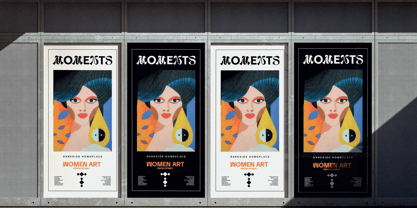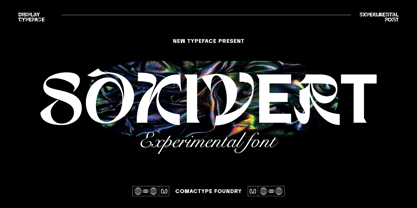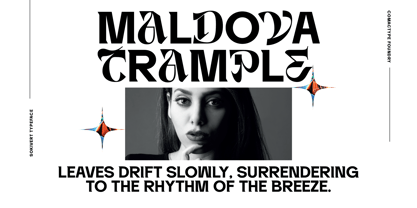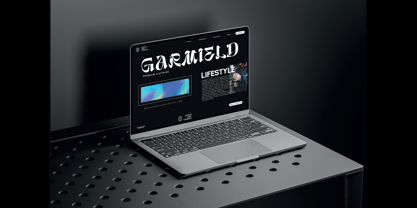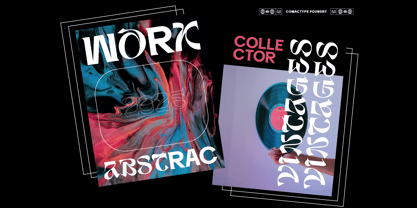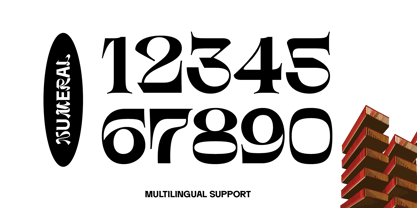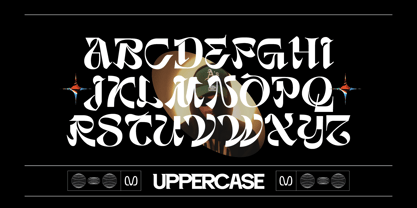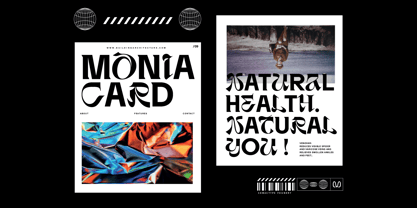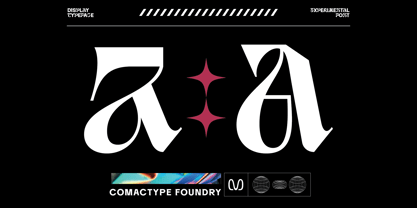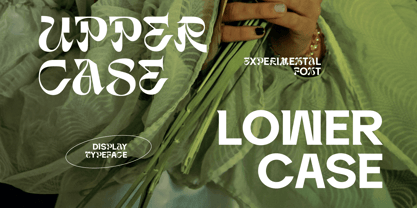
Sokivert
by Comactype Foundry
The Sokivert Font Family was designed by Hasnul Bolkiah and published by Comactype Foundry. Sokivert contains 1 styles. More about this family
Sokivert is an experimental font from Comac Type Foundry that blends futuristic elements with artistic flair. It features two distinct styles: the lowercase is bold and minimalistic with solid geometric shapes, while the uppercase is more expressive, incorporating unique cuts and decorative curves. Its dynamic character makes it ideal for branding, posters, album covers, and bold editorial design. With a fusion of retro-futuristic and modern aesthetics, Sokivert strikes a balance between readability and strong visual appeal.
Designers: Hasnul Bolkiah
Foundry: Comactype Foundry